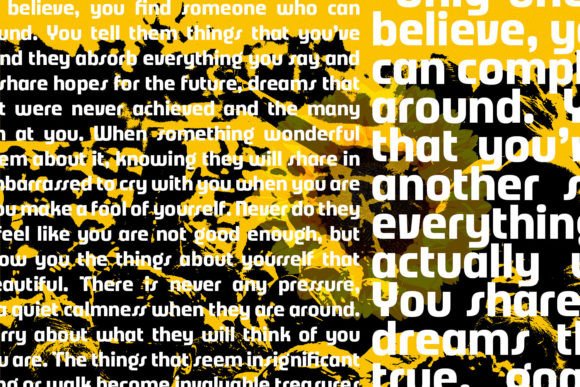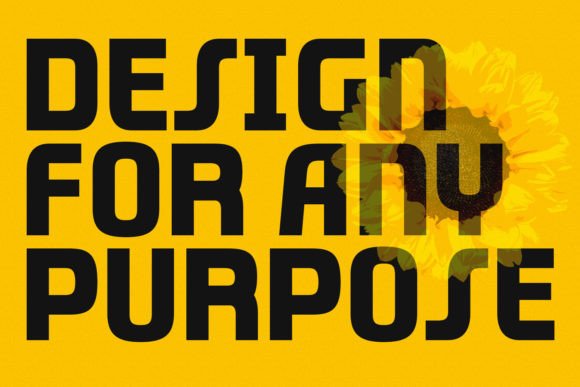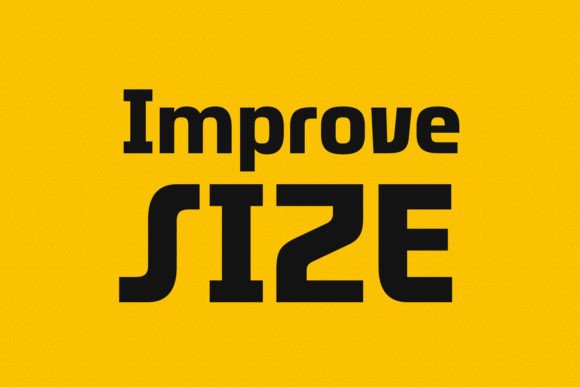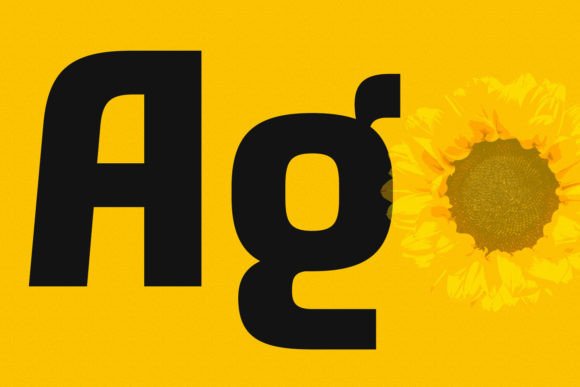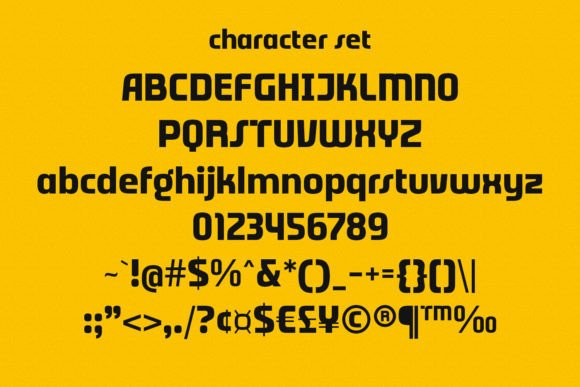
The Ultimate Design Game-Changer: Angret Font
I’ll never forget the time I was working on a project for a bold and edgy client, and I just couldn’t find the right font to match their vibe. I scoured the internet, tried out dozens of fonts, but nothing seemed quite right. That was until I stumbled upon Angret Font. 💥
As soon as I saw it, I knew I had found the one. Angret is a bold and assertive sans serif font that instantly elevated my design game. No matter the topic, this font has the potential to take your creations to the next level. In this article, I’ll share my honest review, a practical guide on how to use Angret, and some valuable insights into its features and alternatives.
• ✅ Bold and assertive: Angret Font makes a statement, and that’s exactly what you want when you’re looking to grab attention.
• ✅ Versatile: Whether you’re designing a logo, a poster, or a social media graphic, Angret fits right in.
• ✅ Easily readable: Despite its boldness, Angret remains clear and easy to read, even at smaller sizes.
• ⚠️ Limited use in body text: While Angret is amazing for headlines and titles, it might not be the best choice for longer body text due to its boldness.
• ⚠️ Requires thoughtful pairing: Angret can be quite dominant, so you’ll need to choose complementary fonts carefully to avoid visual overload.
The Story Behind Angret: Designer Inspiration
Angret was created with the intention of crafting a font that’s both bold and beautiful. Inspired by modern urban landscapes and the assertiveness of contemporary design, Angret aims to be a versatile tool for designers. While the actual designer behind Angret might not be widely known, the inspiration for the font comes from a desire to create something that speaks loudly and clearly in any design context.
Q: Is Angret suitable for body text?
A: While Angret is stunning for titles and headlines, it’s not typically recommended for body text due to its boldness. It’s best used sparingly to make an impact.
Q: Does Angret support OpenType features?
A: Yes, Angret supports OpenType features, including ligatures and stylistic alternates, which can add more flair to your designs.